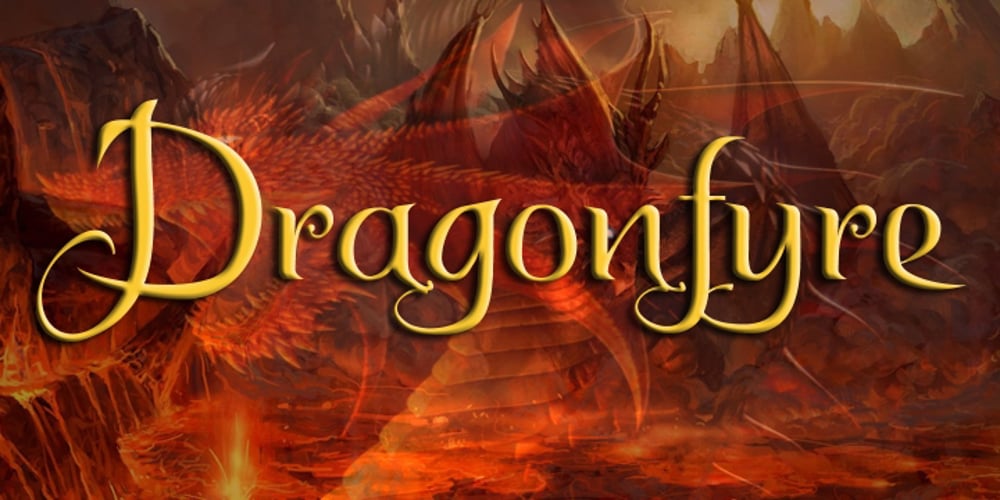
DragonFyre Font Family was designed by Anton Scholtz and published by Scholtz Fonts. DragonFyre contains 1 styles and family package options. Beware: Here be Dragons! It Be Dangeroues to Venture Yonder! This warning, inscribed on a rock at the entrance of a cave in an inaccessible mountain in the far north of Scotland, provided the inspiration for the font DragonFyre. While I have not seen the actual rock myself, I have based the font on an accurate drawing of the original inscription. DragonFyre speaks of lands beyond our ken, of wistful faerie kingdoms, of dark happenings and white magic. Use it at your peril, for its very use will conjure up worlds long forgotten, places of faeries, elves and hobgoblins, of ogres and giants. Those who read texts written in this font may well have their lives strangely changed. I have included a complete character set of 242 characters; upper and lower case; as well as all accented and special characters. All characters have been carefully letterspaced and kerned. For maximum dramatic impact I suggest you use combinations of both upper- and lower-case characters.